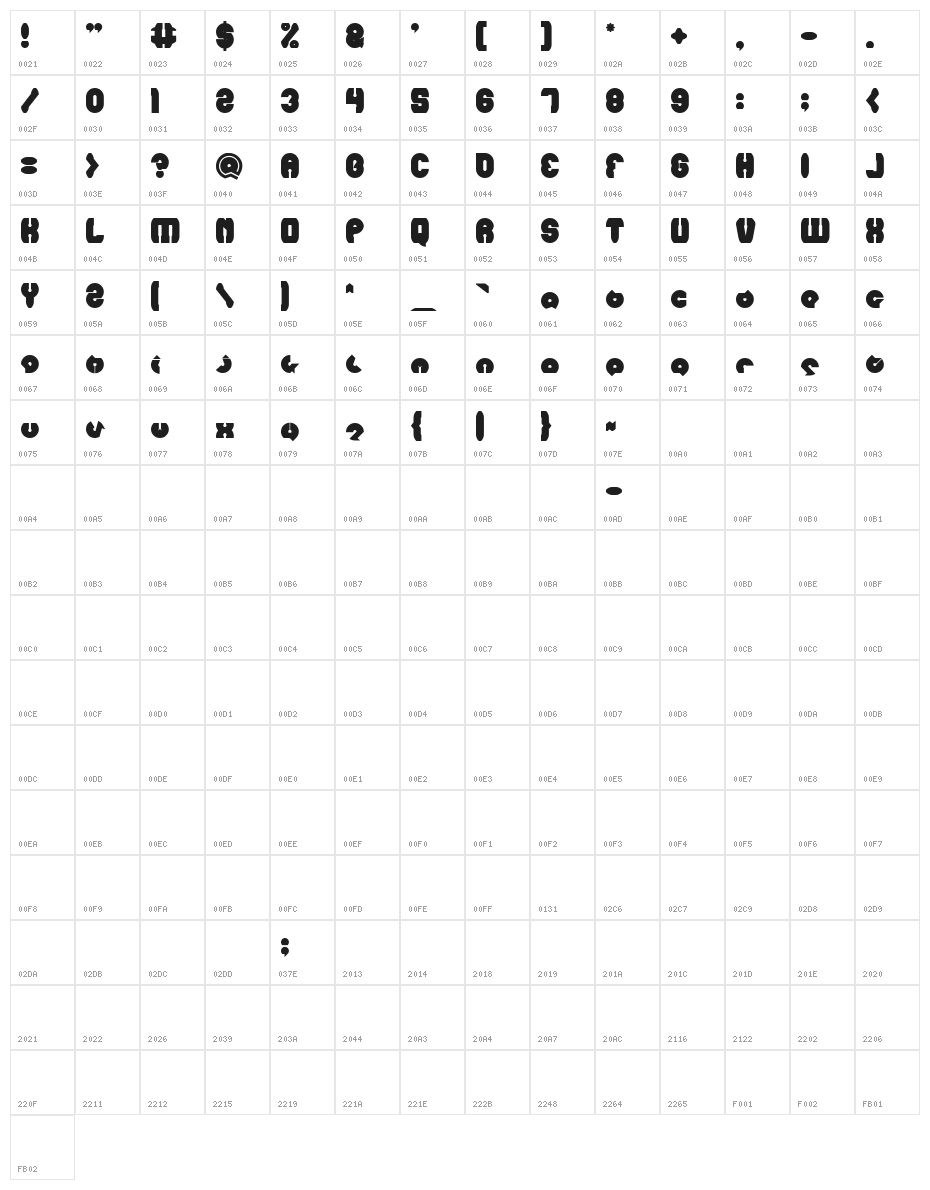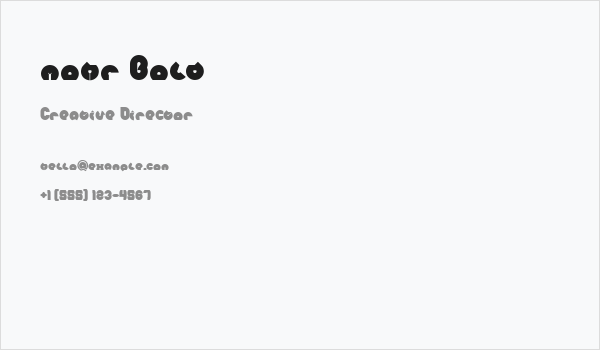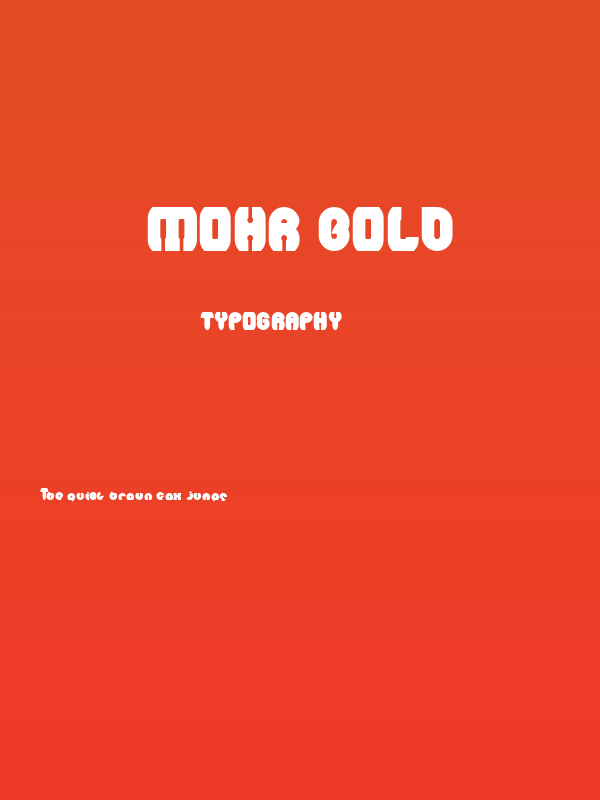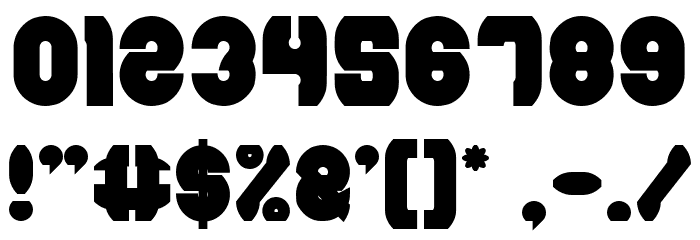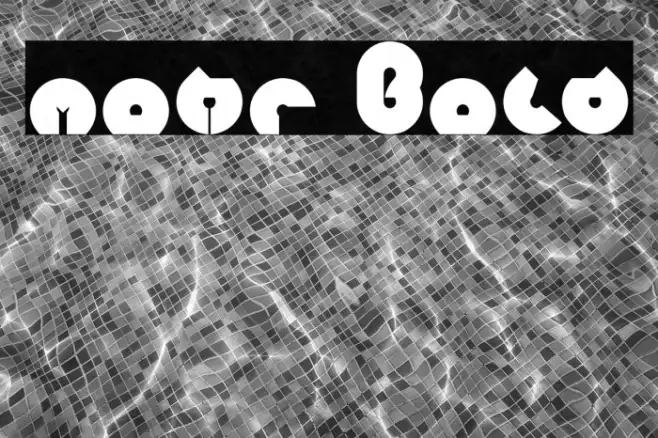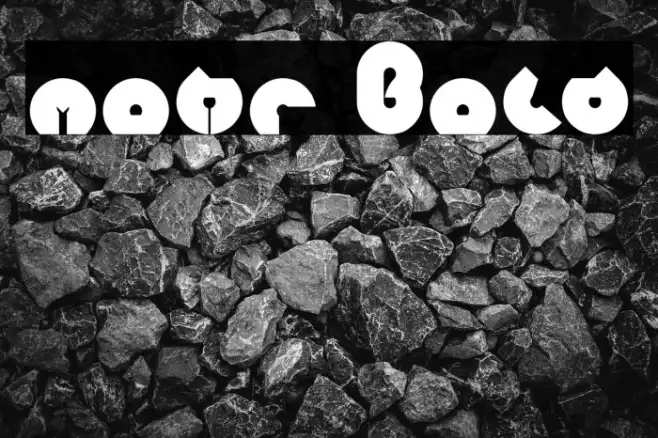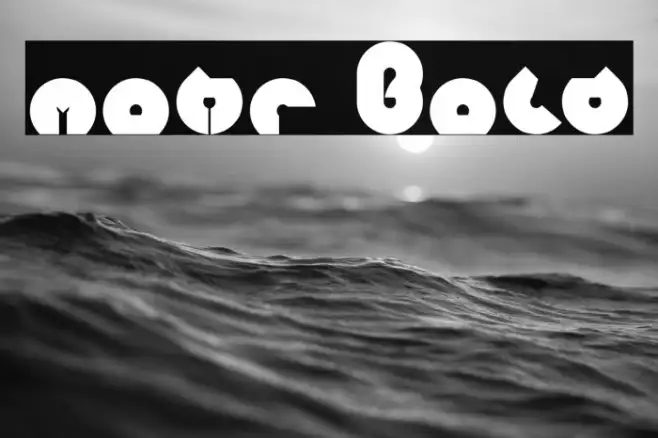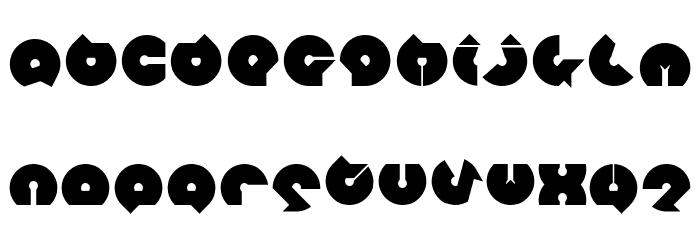
mohr Bold Font
mohr Bold Description
This font features a bold and striking design with a modern, geometric aesthetic. The characters are constructed with thick, uniform strokes that create a strong visual impact. The rounded edges and unique cutouts within each letterform add a distinctive, contemporary flair. The uppercase and lowercase letters maintain a consistent style, while the numerals and special characters complement the overall design. This font's boldness and geometric shapes make it ideal for attention-grabbing headlines and creative projects.
MOHR-BOLD UPPERCASE
MOHR-BOLD LOWERCASE
MOHR-BOLD OTHER CHARS